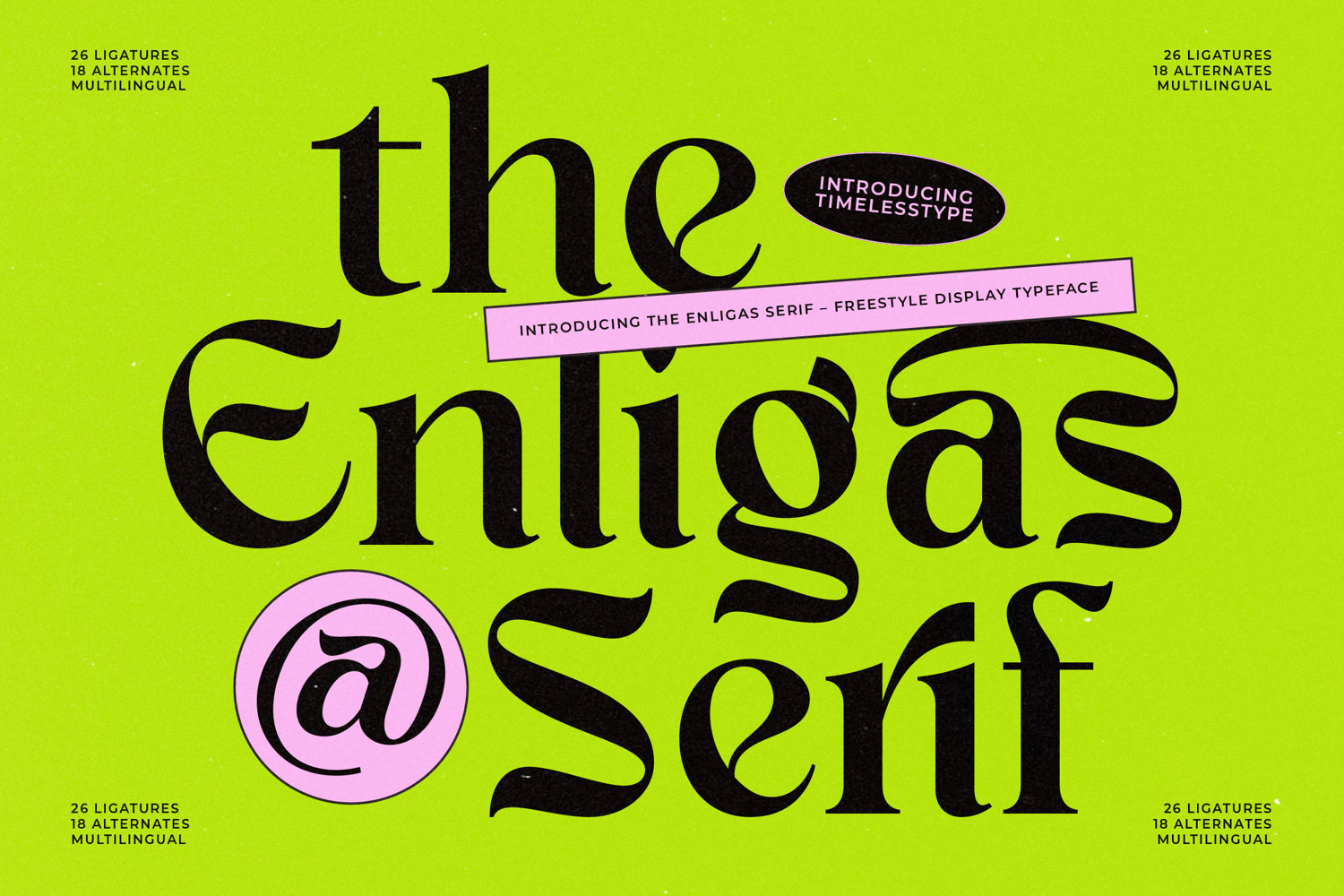
Enligas - Freestyle Display Typeface
Unleash unforgettable visual impact with this truly distinctive typeface. Enligas - Freestyle Display Typeface is a masterclass in high-contrast display typography, blending the timeless elegance of classic serifs with a bold, contemporary fluidity. Its dramatic thick-and-thin strokes and sweeping, stylized terminals demand immediate attention, establishing an immediate sense of sophistication and dynamic energy. This font is engineered for maximum headline presence, ensuring your message is not just read, but powerfully felt across any medium.
Explore limitless creative possibilities through its extensive feature set. Equipped with 26 unique ligatures and 18 stylistic alternates, Enligas - Freestyle Display Typeface allows designers to craft bespoke, custom-lettered aesthetics directly within the typeface. This wealth of OpenType features ensures incredible variation, making every headline feel fresh and compellingly customized. With its extensive multilingual support, Enligas - Freestyle Display Typeface adapts seamlessly across global markets, making it incredibly versatile for international projects.
Elevate your brand identity to a premium status. Enligas - Freestyle Display Typeface is the perfect solution for projects demanding a mix of heritage and cutting-edge style. It is ideally suited for high-end fashion campaigns, luxury branding, artisanal packaging design, editorial magazine covers, and sophisticated product labeling. If your goal is to convey exclusivity, artistry, and modern flair, this expressive serif is an essential tool in your typographic arsenal.